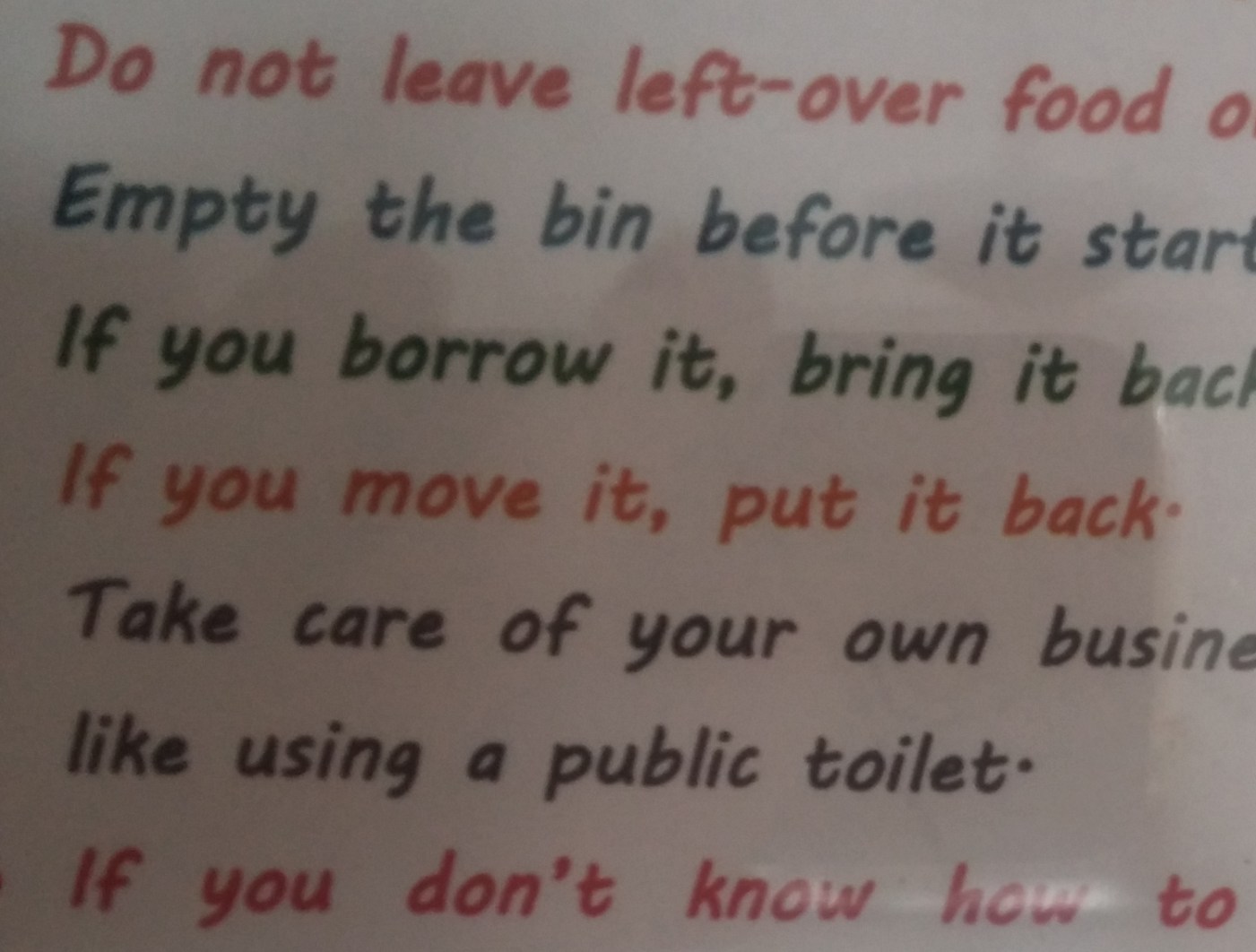
Simple rounded font
Any ideas what this is? None of the font matching websites are coming close. The curve on the capital T, upward curve on b & downward on a are distinctive. The top of the e is very closed too. Many thanks if you can help